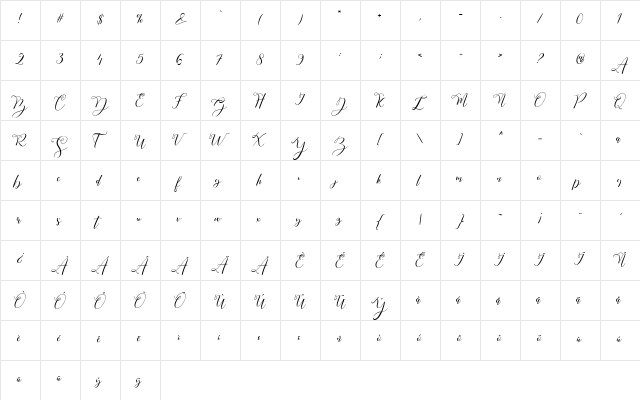
Mastura Regular
| Foundry | Aqeela Studio |
| Designer | Muhammad Nasir |
Design Context for Mastura Typeface
Mastura is a composed and adaptable typeface that performs quietly and consistently across a wide range of design contexts.